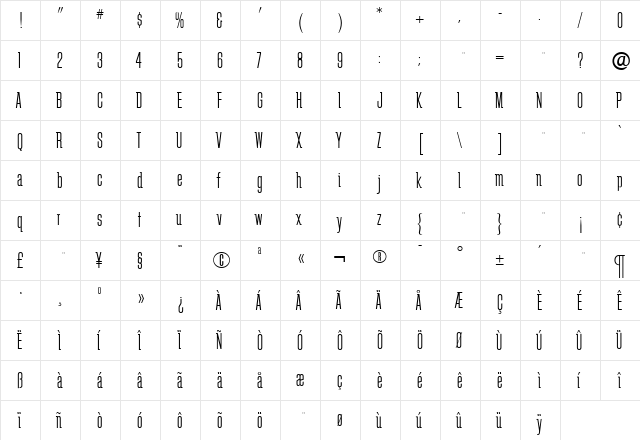
SchindlerLight Roman
Design Context for SchindlerLight Typeface
SchindlerLight takes a measured approach to typography — its balanced proportions and neutral character make it a reliable workhorse for both digital and print work. Its slender proportions lend an understated elegance to any composition.